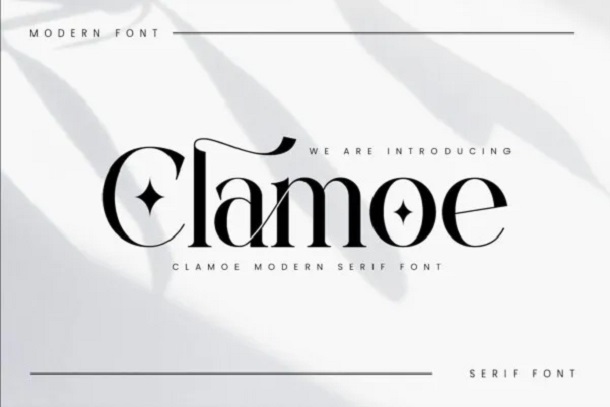
Clamoe Font
Clamoe is an elegant and stylish serif font designed to be smooth and balanced, perfect for design ideas on invitation cards, corporate logos and film titles and movie names, business cards, book titles brands and many other designs.
His charming character makes him ideal for invitation cards as well as corporate logos and film titles and movie names, business cards, book titles brands and many other designs. Clamoe Serif is also available and boasts elegance with its variations and ligatures which makes this font an excellent partner to any project.
Clamoe Serif Font